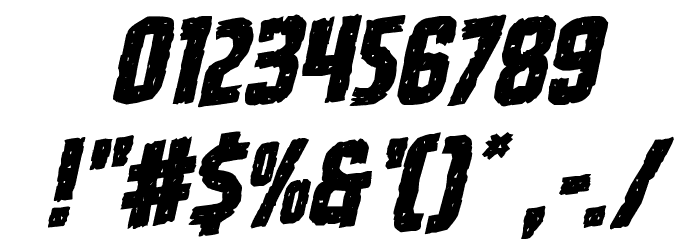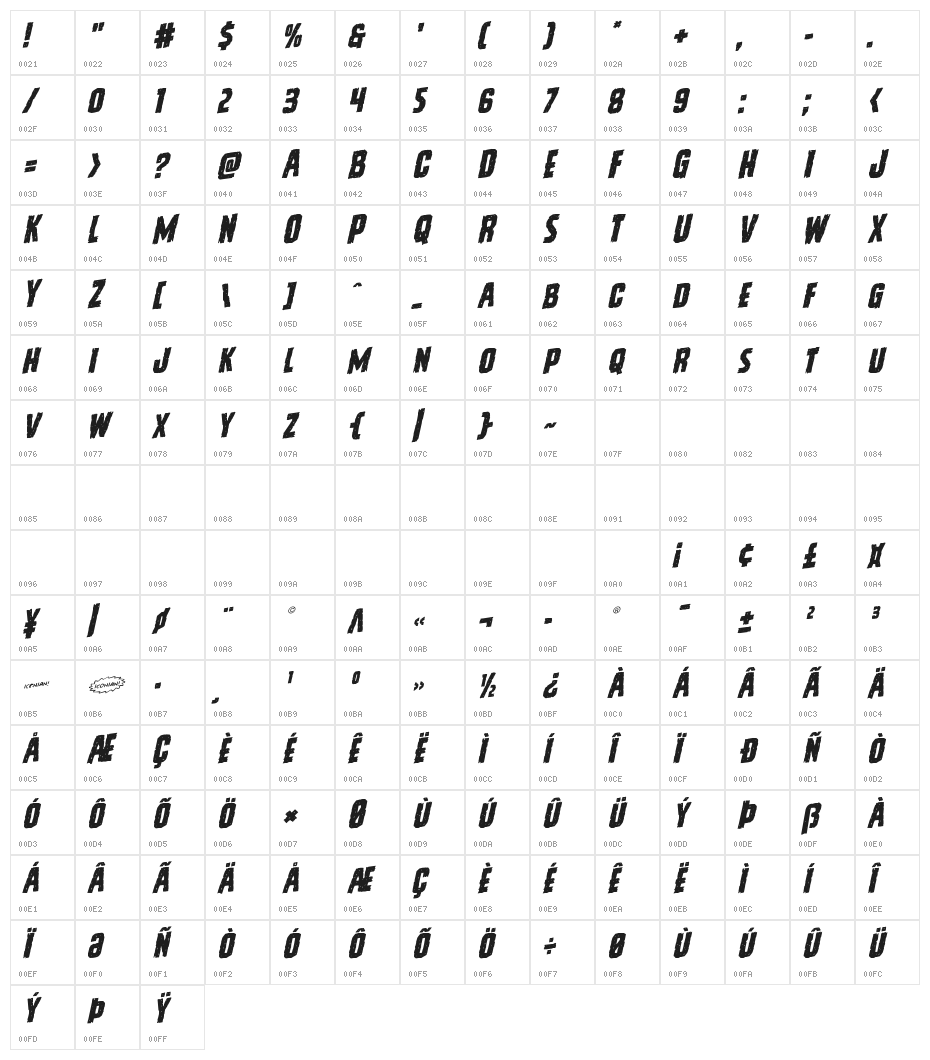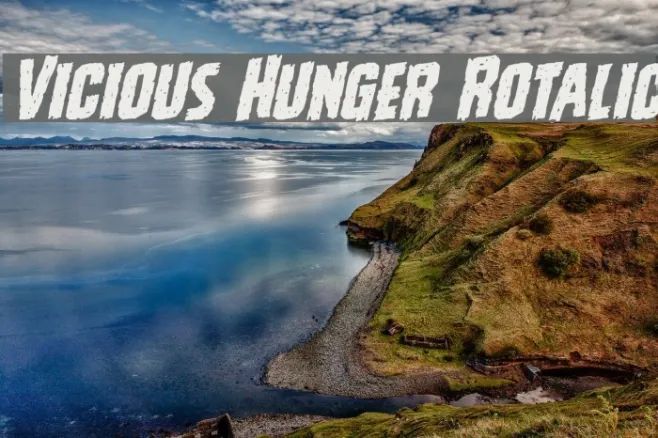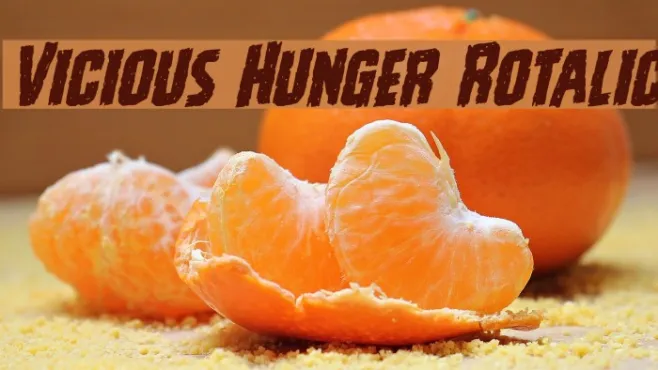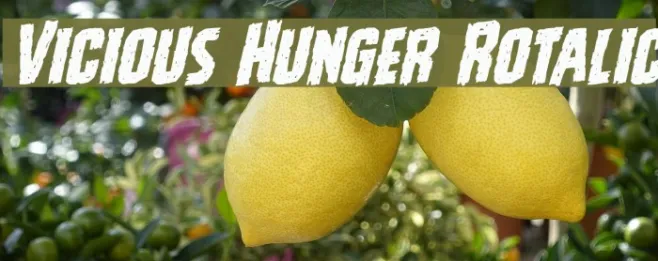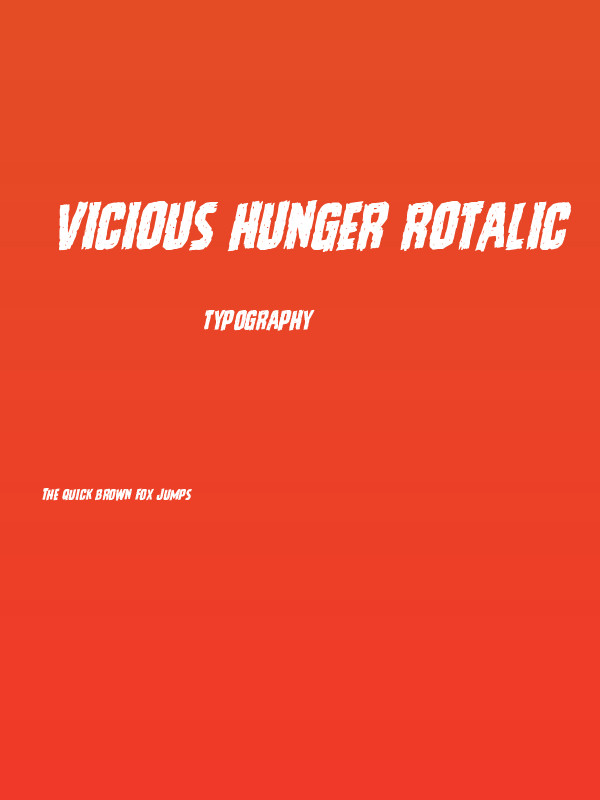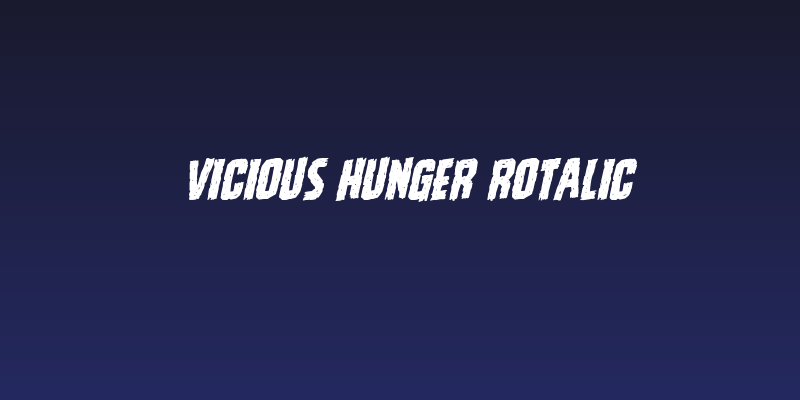
Vicious Hunger Rotalic Font
Vicious Hunger Rotalic Description
This font features a bold, aggressive style with a distressed texture that gives it a rugged, edgy appearance. The characters are slanted, adding a dynamic, italicized effect that enhances its energetic feel. The uppercase and lowercase letters maintain a consistent design, with sharp angles and a slightly condensed form. The numerals and special characters follow the same aesthetic, ensuring uniformity across all glyphs. The font's high contrast in stroke thickness further emphasizes its boldness, making it stand out in any design.
| Overall Style | Modern, Edgy |
| Proposed Projects | Ideal for projects needing a strong, impactful look, such as posters, album covers, or branding for extreme sports. |